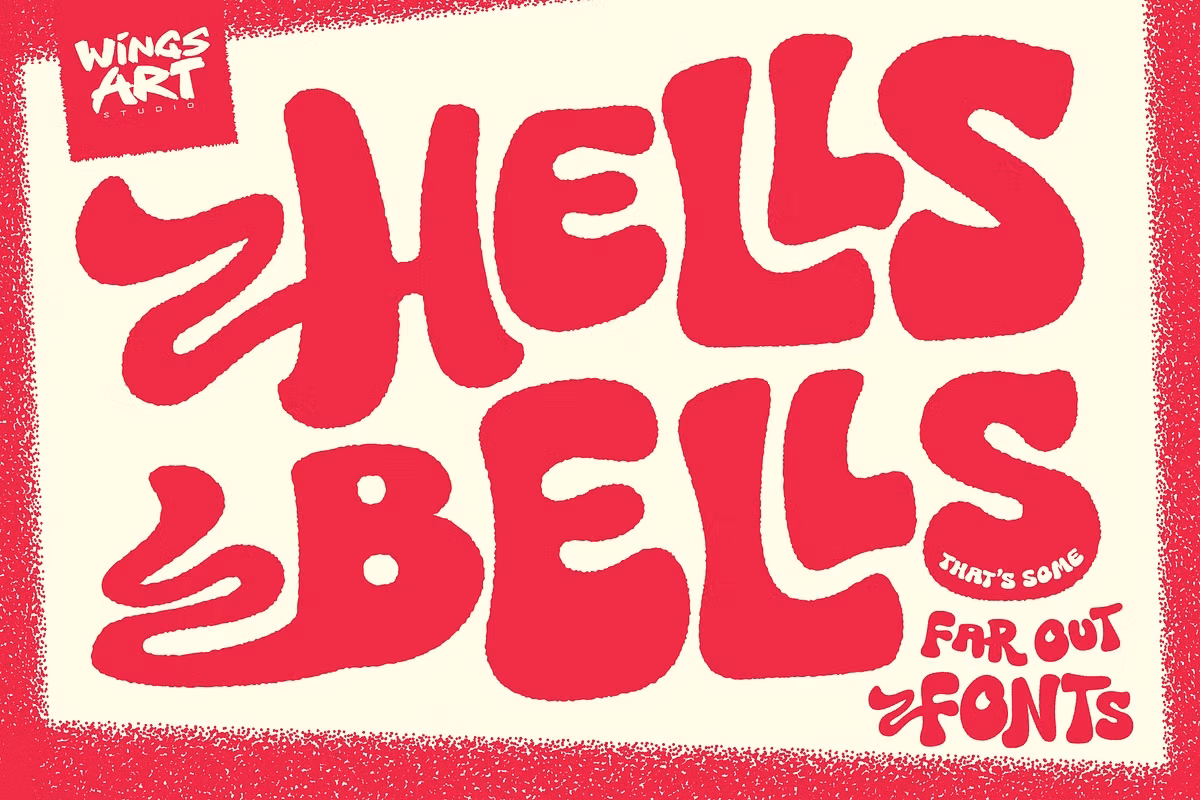
Hells Bells - 1970s Bell Bottom Font Free Download
Hells Bells - 1970s Bell Bottom Font Free Download is a groovy, retro-inspired typeface that captures the funky, free-spirited vibe of the 1970s. With its wide curves, exaggerated flair, and nostalgic bell-bottom-style strokes, this font is perfect for vintage posters, music artwork, fashion branding, and anything that needs a splash of psychedelic style.
Bold, fun, and full of personality, Hells Bells - 1970s Bell Bottom Font Free Download instantly transports your designs to the disco era. Whether you're crafting throwback event flyers or eye-catching product labels, this font adds an authentic retro punch that feels both classic and cool.